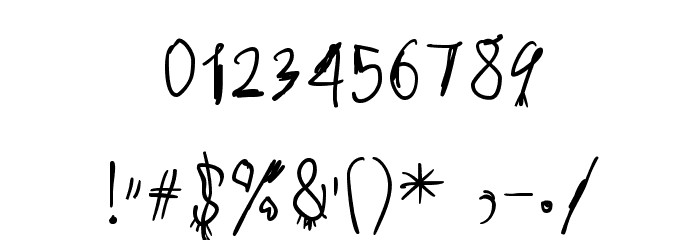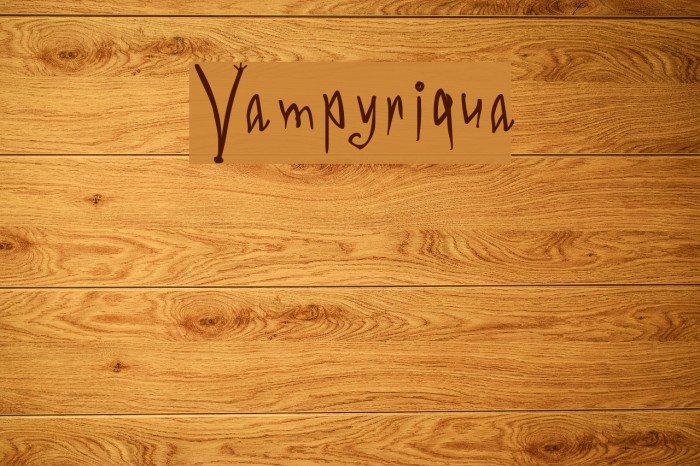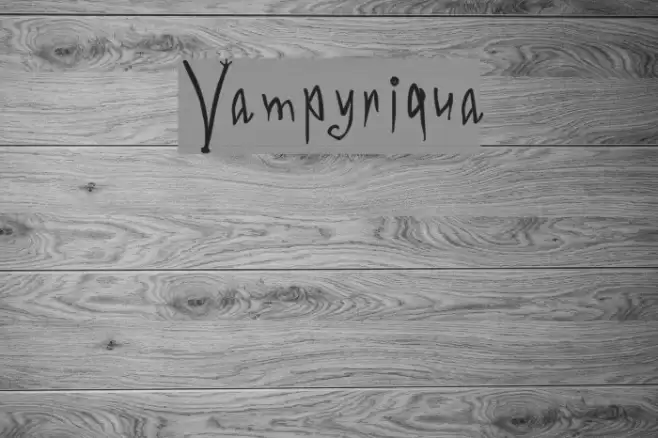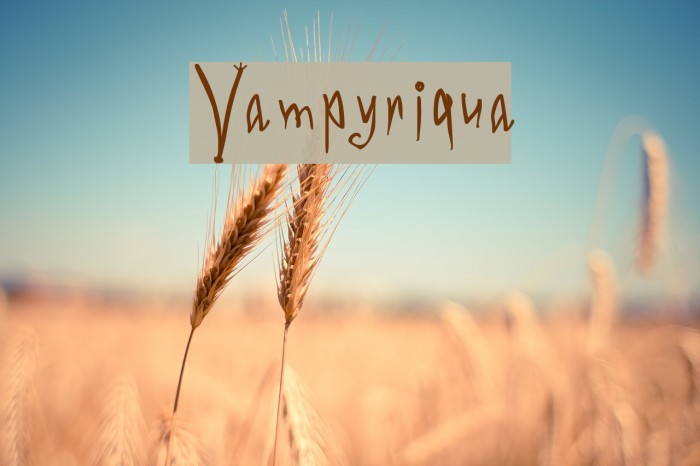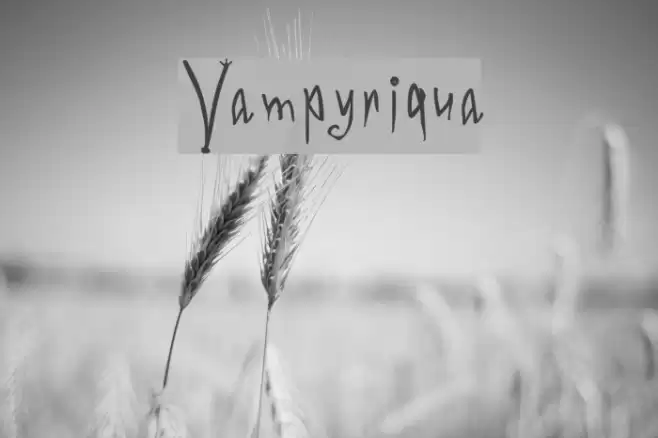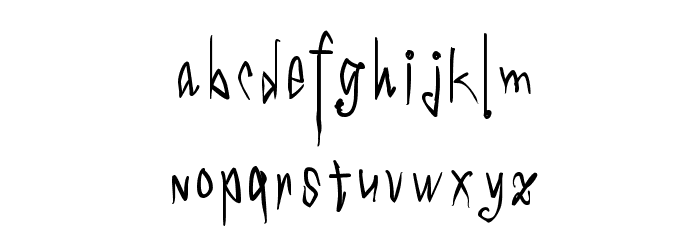
Vampyriqua Font
Vampyriqua Description
This font exudes a gothic and mysterious aura, characterized by its intricate and elongated letterforms. The uppercase letters feature unique embellishments, such as pointed serifs and decorative loops, giving them a whimsical yet eerie appearance. The lowercase letters maintain a consistent style, with some characters exhibiting elongated descenders that add to the font's dramatic flair. The numerals are equally stylized, with varying stroke thicknesses that enhance the font's overall mystique. Special characters are creatively designed, incorporating elements that mirror the font's gothic theme. This font is perfect for projects that require a touch of fantasy or a dark, enchanting aesthetic.
| Overall Style | Gothic, Decorative |
| Proposed Projects | Ideal for book covers, Halloween invitations, fantasy-themed posters, and gothic branding. |